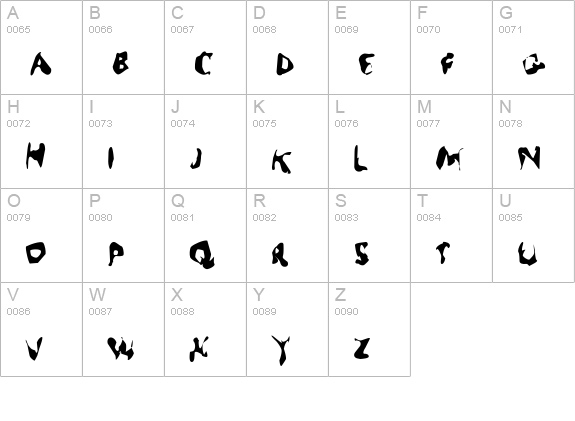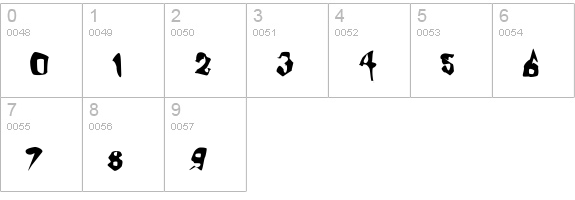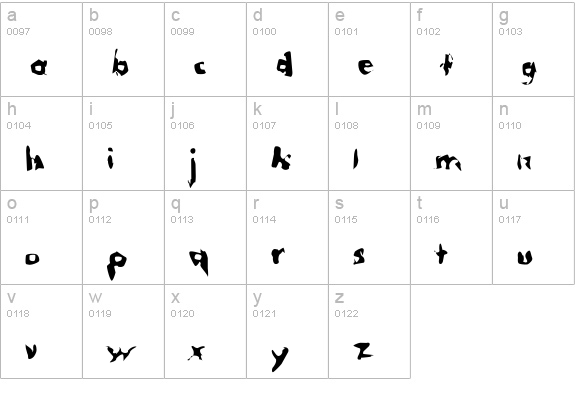
Randomun Font Details
Introducing Randomun, a captivating and versatile font that is sure to make a lasting impression. With its unique and creative design, Randomun breaks free from the constraints of traditional typography, allowing your words to take on a whole new level of artistic expression. This font effortlessly combines the perfect balance of elegance and playfulness, making it suitable for a wide range of projects. Whether you're designing a logo, creating eye-catching headlines, or crafting stunning invitations, Randomun has the flexibility to bring your visions to life. What makes Randomun even more remarkable is that it is freely available to download at FontsMarket.com. This means that you can access this incredible font without any barriers or limitations, allowing you to unleash your creativity without any restrictions. Bold, charismatic, and utterly captivating, Randomun is the perfect choice for those who dare to be different. Its irregular shapes and unconventional letterforms will add a touch of intrigue and excitement to any design, making it impossible for your audience to look away. With Randomun, the possibilities are endless. Let your imagination run wild as you explore the boundless potential of this extraordinary font. Download Randomun for free today at FontsMarket.com and embark on a typographic adventure like no other.